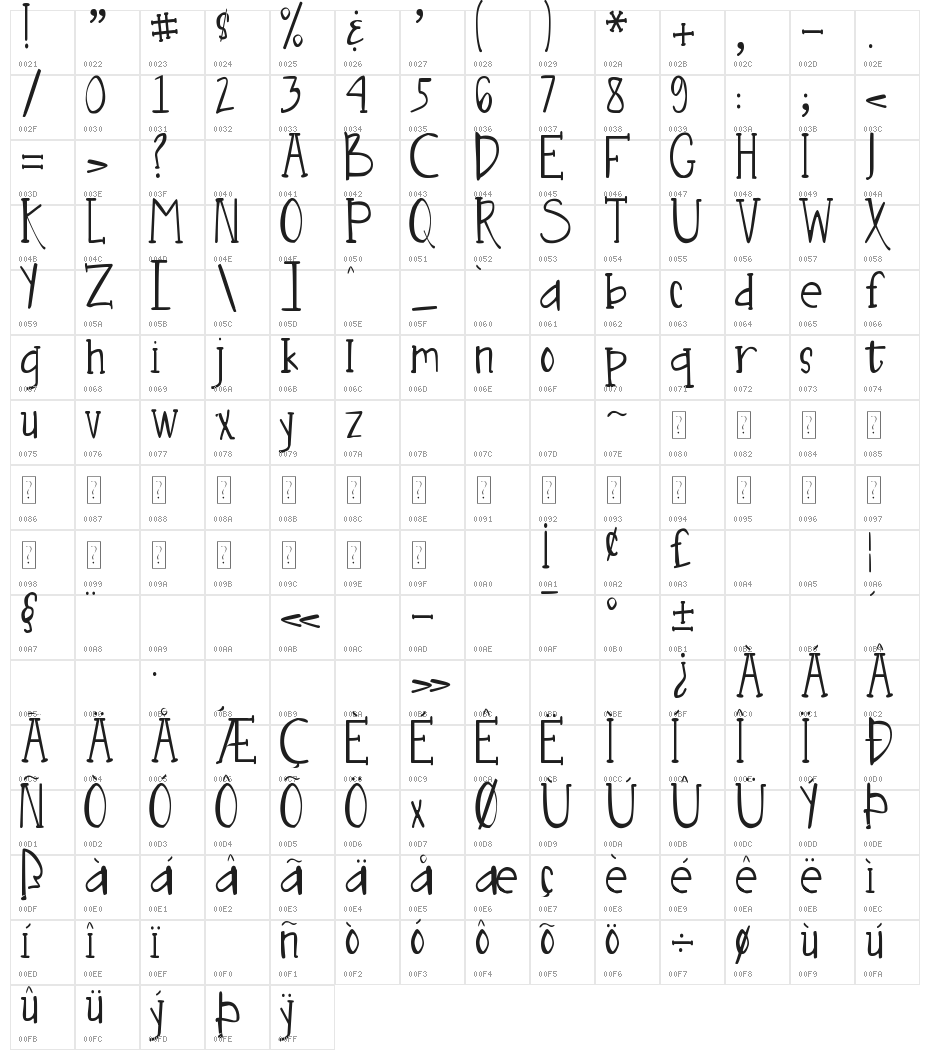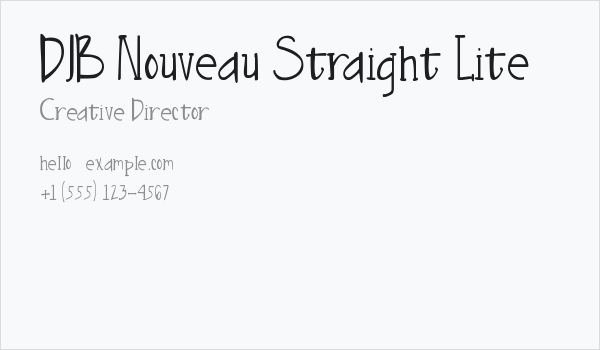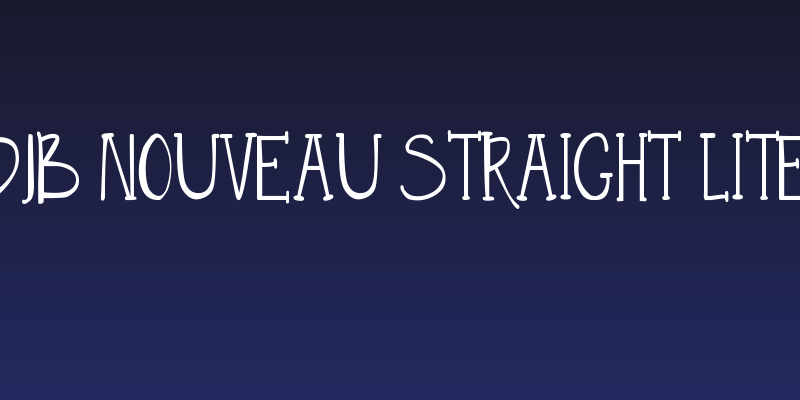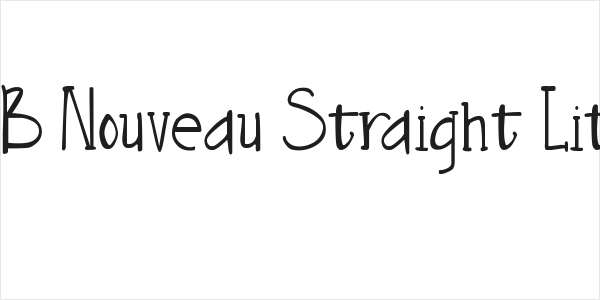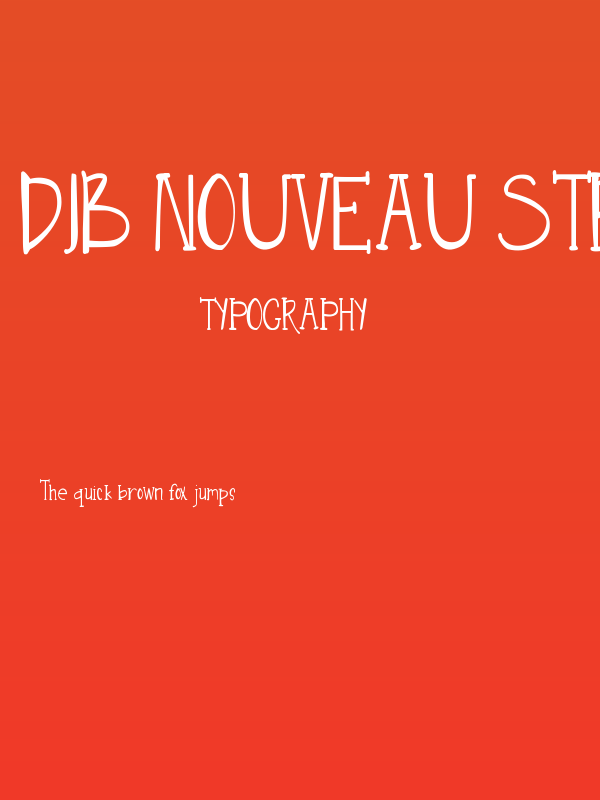
DJB Nouveau Straight Lite Font
DJB Nouveau Straight Lite Description
This font features a playful and whimsical design, characterized by its tall, narrow letterforms and slightly irregular strokes. The uppercase letters are bold and prominent, while the lowercase letters maintain a consistent style with a touch of quirkiness. The numbers are distinct and easy to read, with a slight tilt that adds to the font's unique personality. Special characters are creatively designed, maintaining the overall playful theme. The font's hand-drawn appearance gives it a personal and friendly feel, making it suitable for creative and informal projects.
| Proposed Projects | Ideal for children's books, greeting cards, playful branding, and creative posters. |